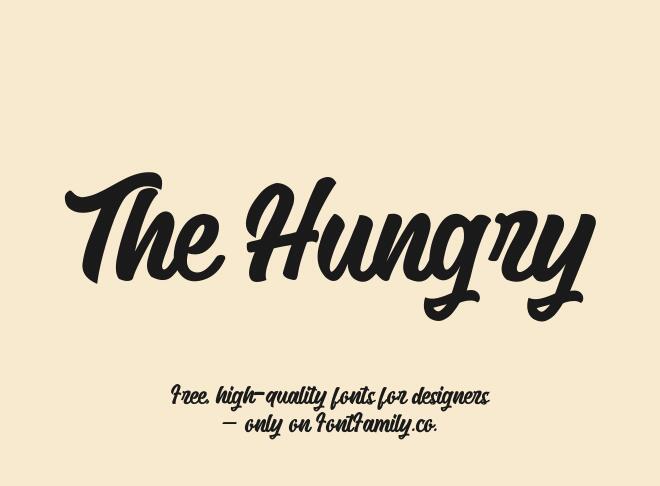
The Hungry Font
The Hungry Font is a playful, handwritten typeface that exudes a rustic charm. It's been crafted with a unique touch, making it an excellent choice for a variety of design projects. The irregular, uneven letterforms give this font a distinctive and decorative appeal, perfect for logos, branding, or packaging design. Its handwritten style is reminiscent of chalkboard art, making it an ideal choice for restaurant menus, food packaging, or anything requiring a handmade touch. The Hungry Font stands out from the crowd with its unique character and playful vibe. Its distinct style makes it a great alternative to more traditional handwritten fonts, while still maintaining a professional look and feel. This free-to-use font is a must-have addition to any designer's toolkit.